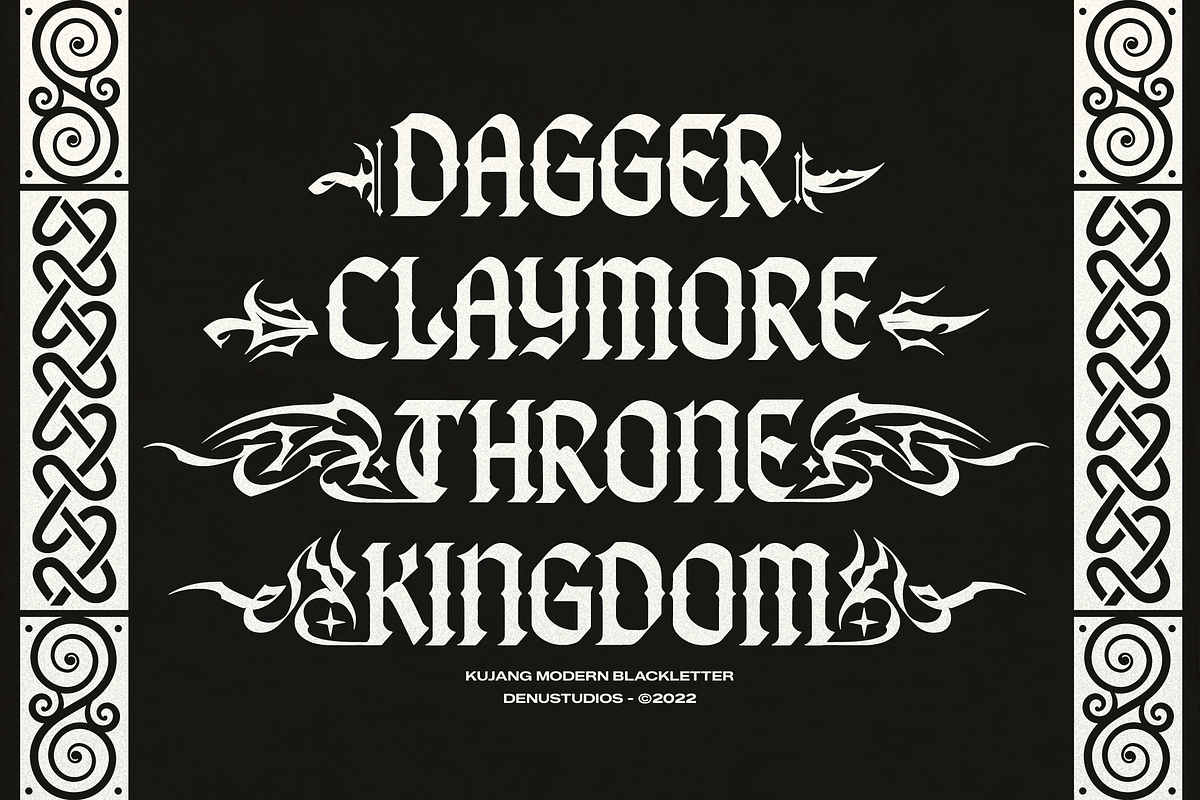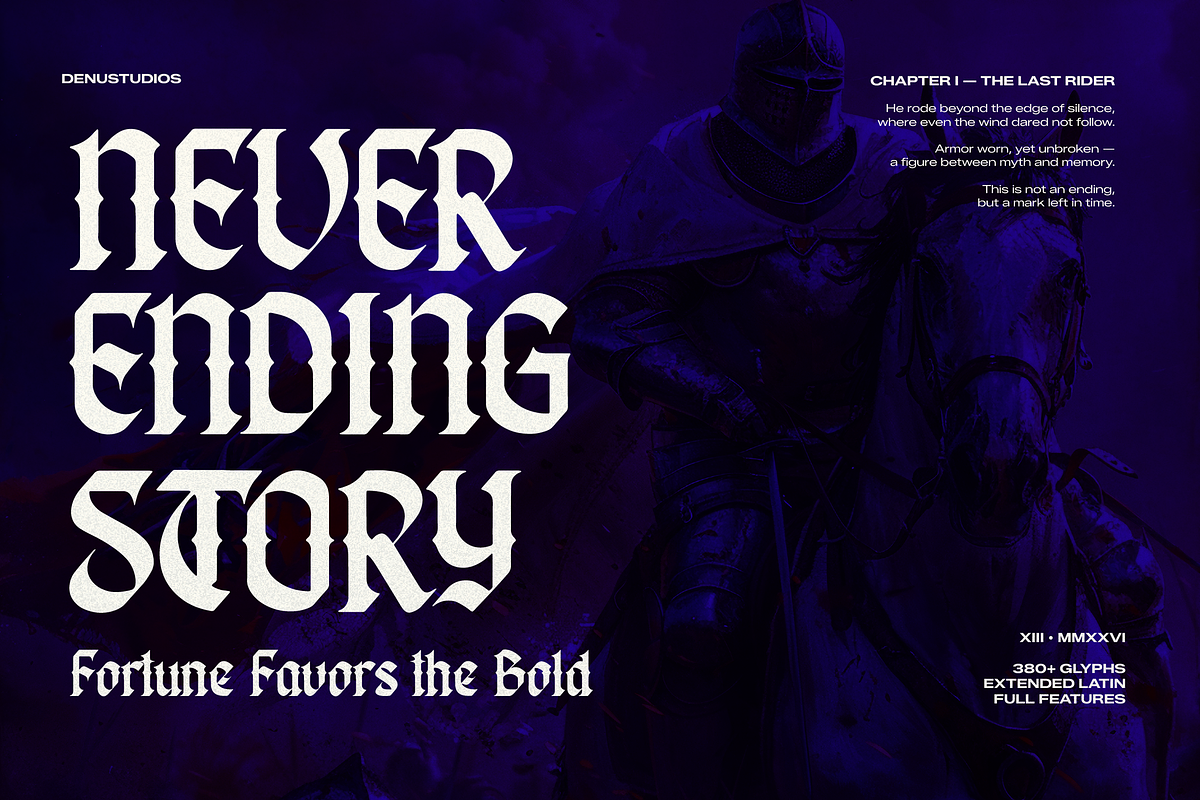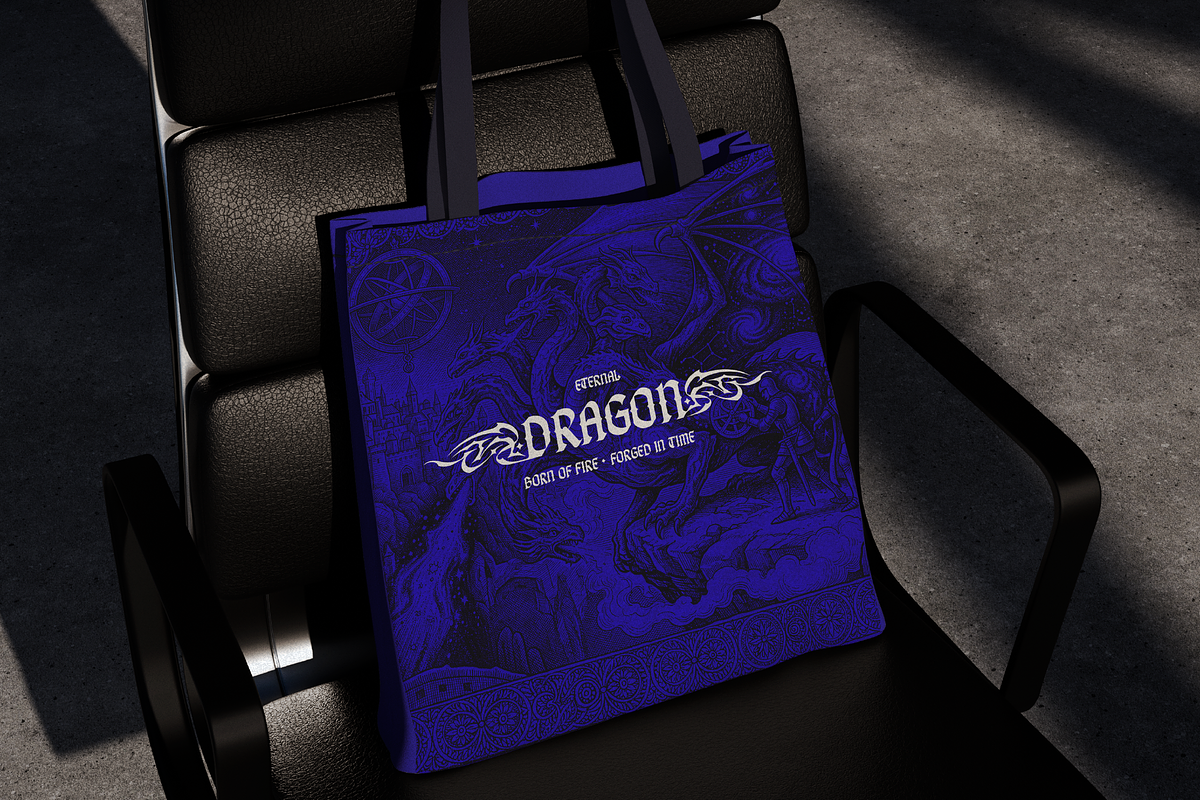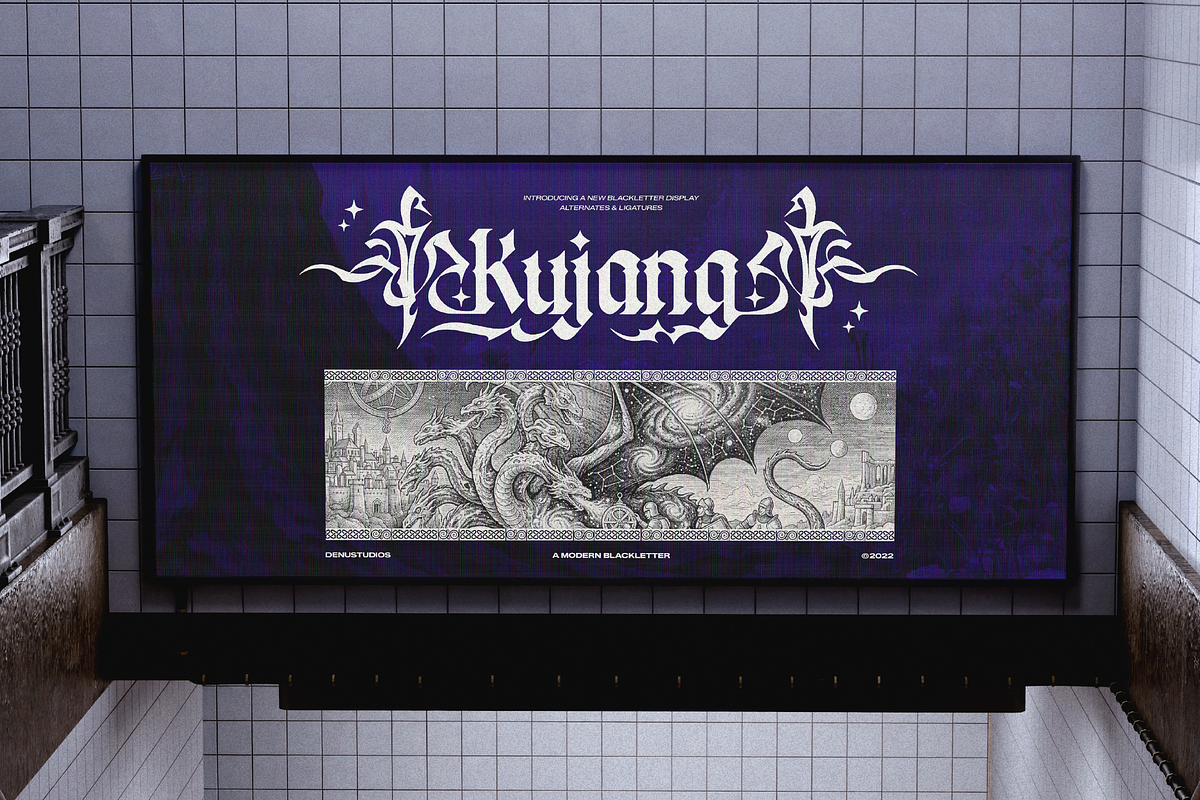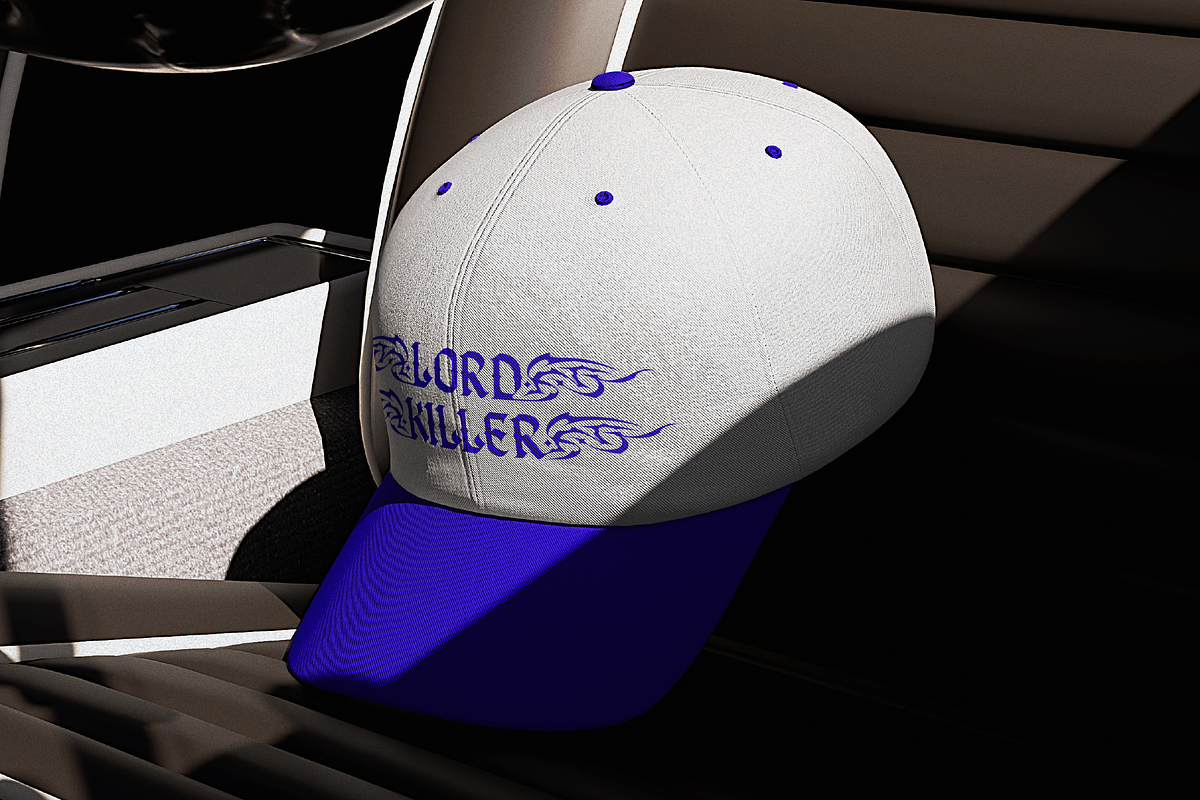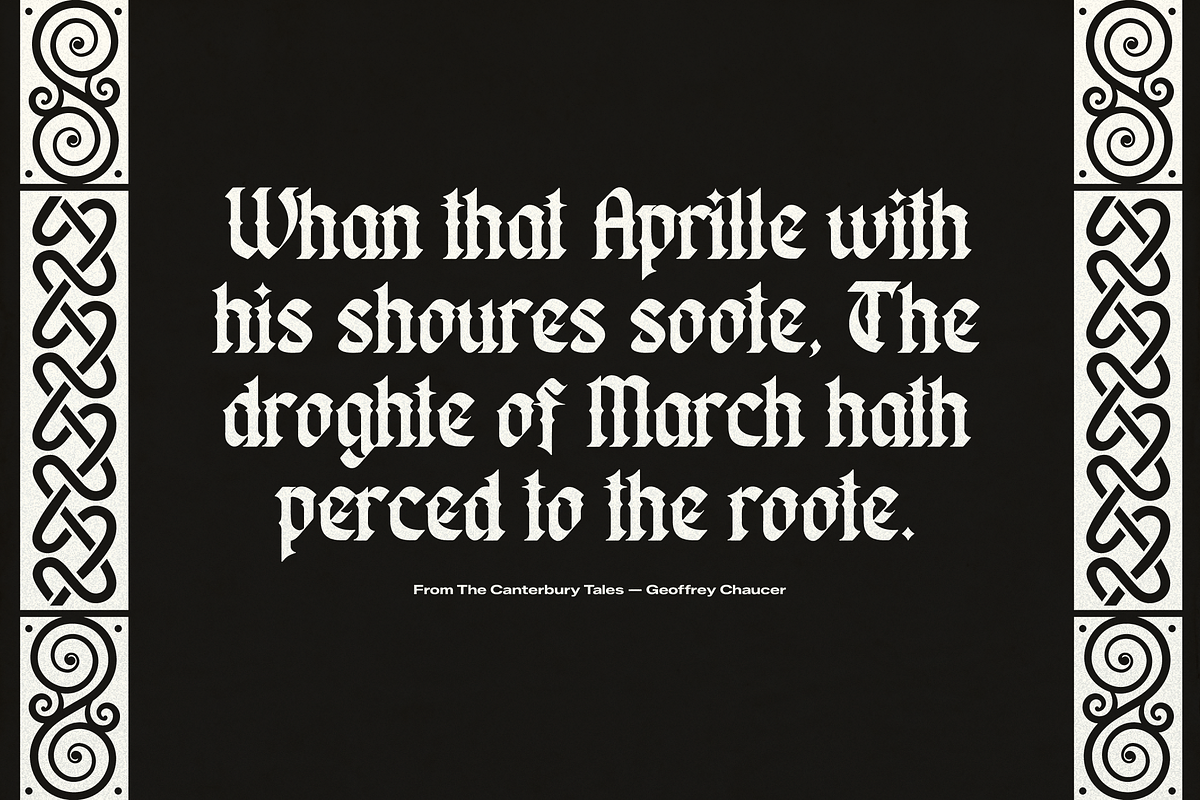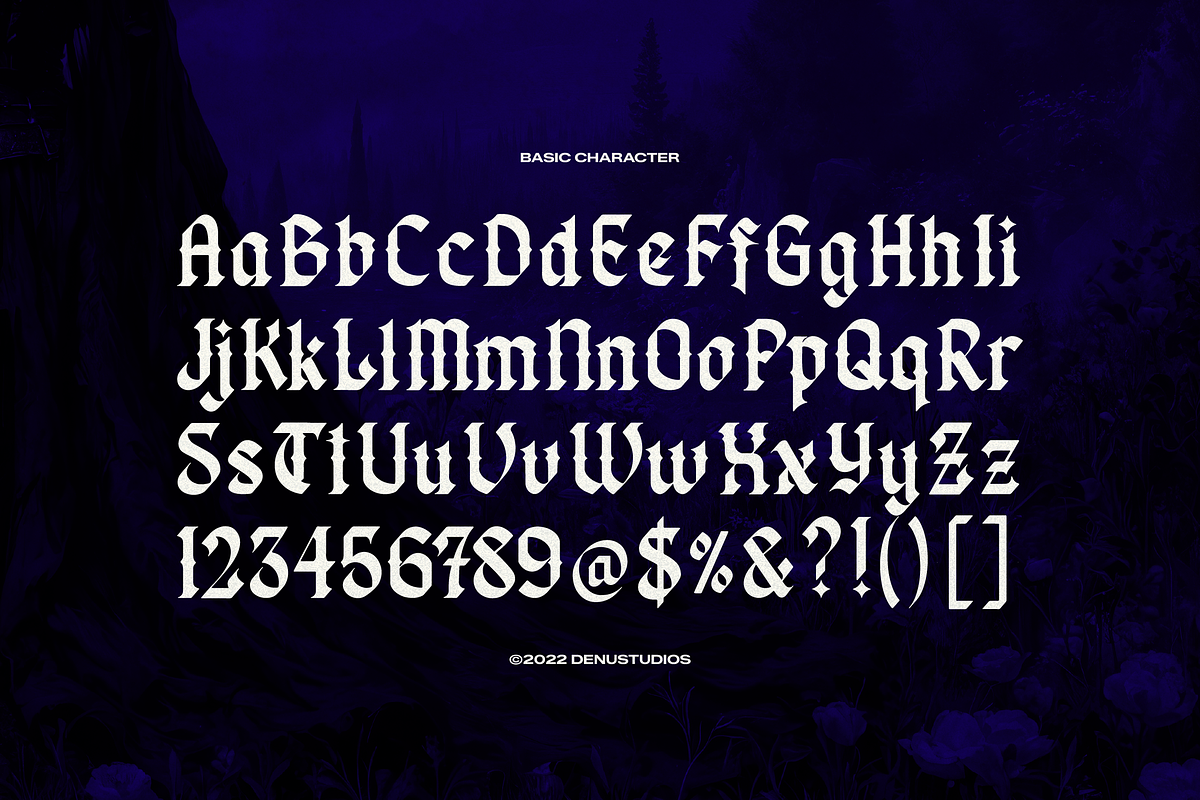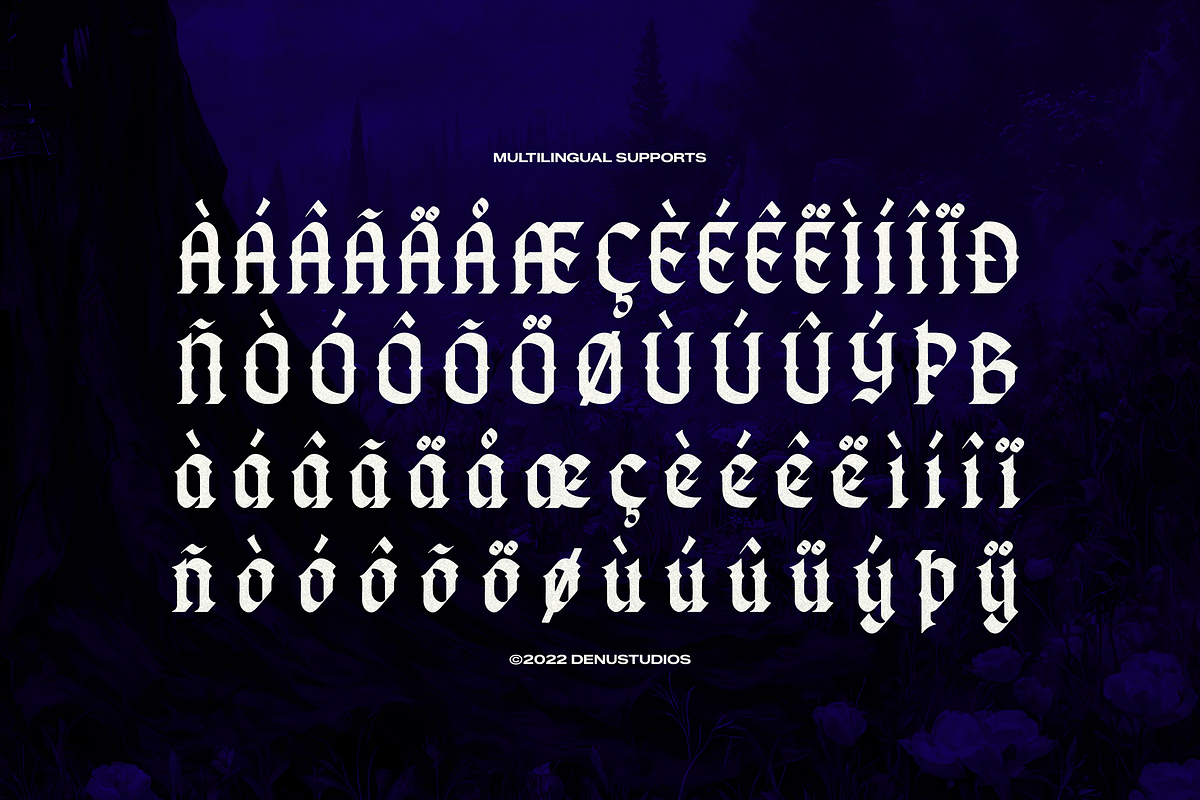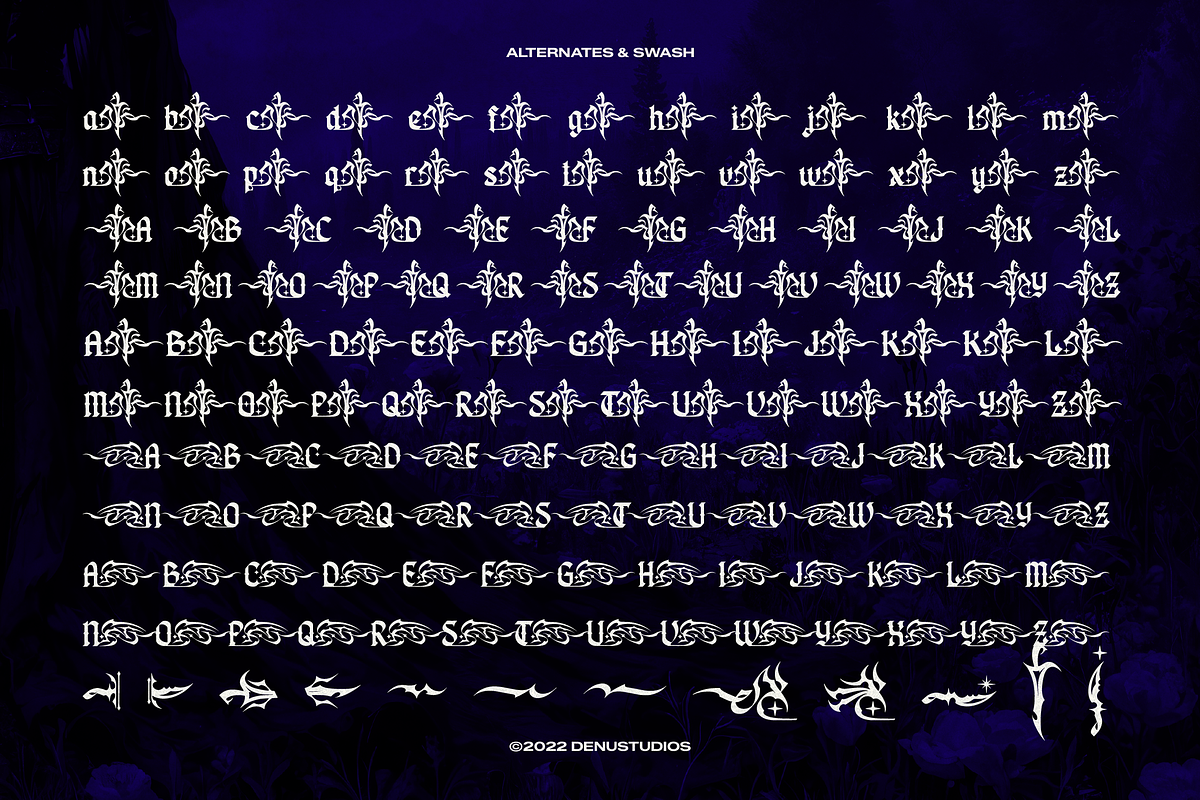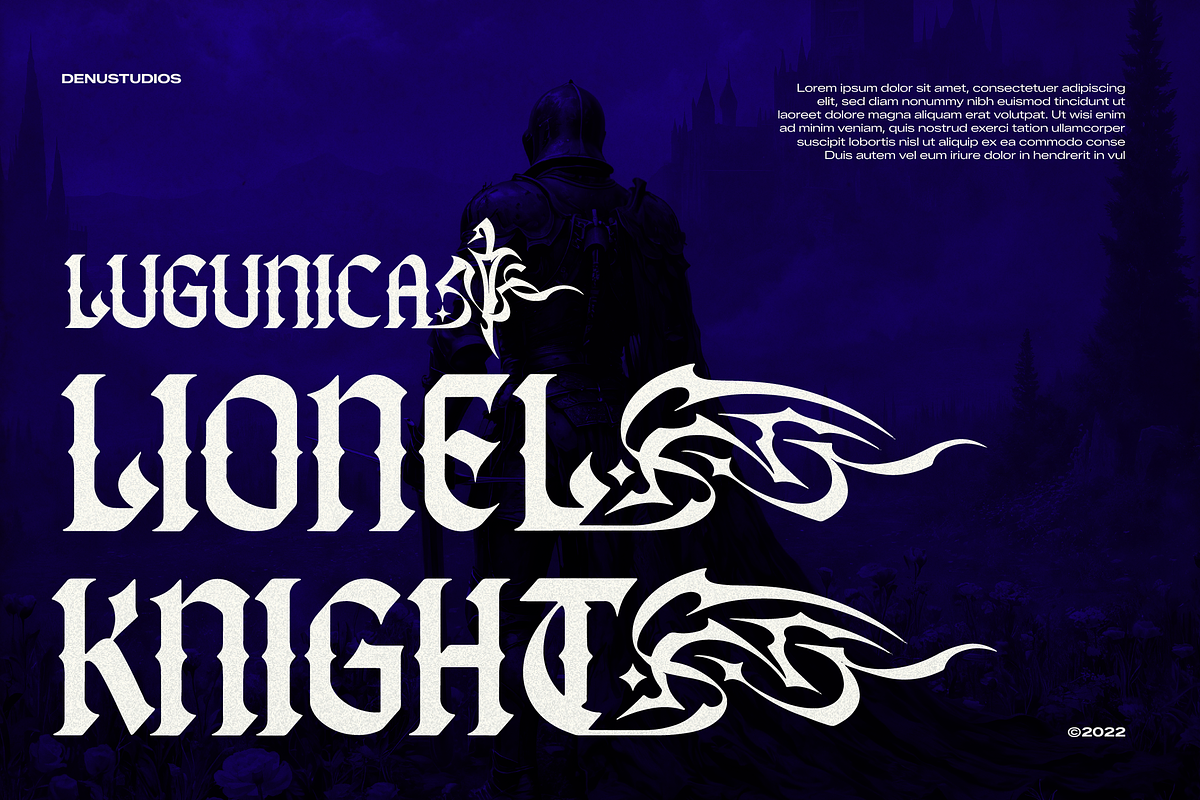
Kujang | Modern Blackletter
Kujang | Modern Blackletter, from Denustudios, suitable for any projects such as: logos, branding projects, homeware designs, product packaging, mugs, quotes, posters, shopping bags, t-shirts, book covers, name card, invitation cards, greeting cards, label, photography, watermark, special events, and all your other lovely projects that need a Blackletter taste.
Standard glyphs
Alternate and Ligature
Fonts include multilingual support